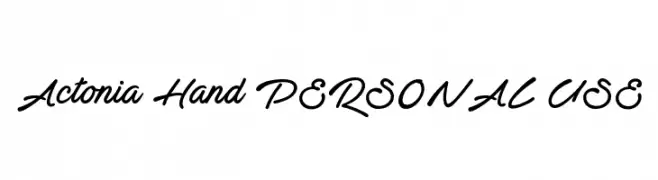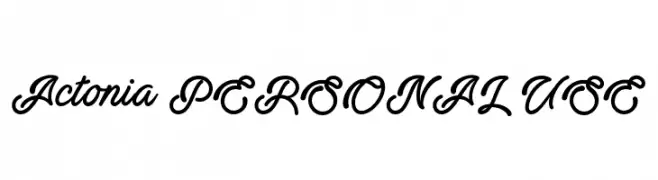
( Skyhaven Fonts - fonts.plph.co )
A bold, hand-drawn font with dynamic, angular strokes.
( Vladimir Nikolic - www.coroflot.com/vladimirnikolic )
Hand-drawn cartoon face dingbat font.
( Vladimir Nikolic - www.coroflot.com/vladimirnikolic )
A playful font featuring cartoonish animal faces with bold, rounded designs.
( Rafaela de Conto - rafaeladeconto.tumblr.com/ )
A modern, decorative font with bold and abstract design elements.
( Skyhaven Fonts - fonts.plph.co )
A tall, narrow handwritten font with a casual, informal style.
( Skyhaven Fonts - fonts.plph.co )
A handwritten font with a casual, organic style and tall, narrow uppercase letters.
( Sudar Moko )
A modern, geometric sans-serif font with smooth, rounded edges.
( Studiorazi - Muhammad Razi - creativemarket.com/StudioRz )
An elegant script font with graceful curves and decorative flourishes.
( Out of Step Font Company - Dan Steinbok - outofstepfontco.com )
A geometric, angular font with a futuristic and precise design.
( Walter Paggioro - www.raptuscreativi.com/site/fields/type-design/ )
A whimsical, hand-drawn font with elongated, irregular characters.
( TwoNineFive - Maximillian Limpo )
A bold, geometric font with a digital, pixelated style.
( The Autumn Rabbit - Louise Ross - www.theautumnrabbit.com )
A thin, elegant font with a modern and minimalistic design.
( Vladimir Nikolic - www.coroflot.com/vladimirnikolic )
A bold, 3D-filled italic font with a dynamic and modern style.
( Vladimir Nikolic - www.coroflot.com/vladimirnikolic )
A bold, 3D font with filled centers and strong outlines, perfect for impactful designs.
( Vladimir Nikolic - www.coroflot.com/vladimirnikolic )
A decorative font with bold characters enclosed in ornate, gear-like frames.
( Vladimir Nikolic - www.coroflot.com/vladimirnikolic )
A bold, italic font with a dynamic and modern style.
( Vladimir Nikolic - www.coroflot.com/vladimirnikolic )
A bold, modern sans-serif font with clean lines and geometric shapes.
( Muhammad Romzul Khoir )
A bold, modern font with geometric influences and clean lines.
( Wacaksara Co - www.wacaksara.co )
A bold, expressive script font with flowing, cursive letterforms.
( N ! C E )
A bold, serif font with strong, classic lines and modern elegance.
( Typia Nesia - www.myfonts.com/foundry/Typia_Nesia/ )
An elegant and flowing script font with smooth, cursive strokes.
( Siwox Studios - bit.ly/saffatinmyfonts )
A bold, brush-style font with dynamic, hand-painted strokes.
( Richard )
A modern, geometric outlined font with a minimalist aesthetic.
( Roiyani Teungku - creativemarket.com/artisans )
An elegant, flowing script font with ornate, interconnected characters.
( Nicolas Bruno )
A dynamic handwritten font with fluid, connected strokes and a natural flow.
( Phitradesign - Philip Trautmann - www.phitradesign-fonts.com )
A bold, rounded font with a modern and friendly style.
( Peter Olexa - www.dealjumbo.com )
An ornate and decorative font with intricate swirls and embellishments.
( Tama Putra - be.net/tmptr )
A bold, angular font with a futuristic and dynamic design.
( Vlad Viperov )
A playful, rounded font with consistent stroke width and smooth curves.
( Vlad Viperov )
A modern, sleek font with elongated, narrow characters and a minimalist aesthetic.
( Vladimir Fedotov )
A bold, condensed font with tall, narrow letterforms and minimal spacing.
( Vlad Viperov )
A playful font composed of star and circle shapes, perfect for whimsical designs.
( Roch Art )
A dynamic, expressive handwritten font with rough, textured strokes.
( Vladimir Nikolic - www.coroflot.com/vladimirnikolic )
A modern, italicized font with a gradient effect and dynamic style.
( Vladimir Nikolic - www.coroflot.com/vladimirnikolic )
A modern, striped font with a dynamic, futuristic design.